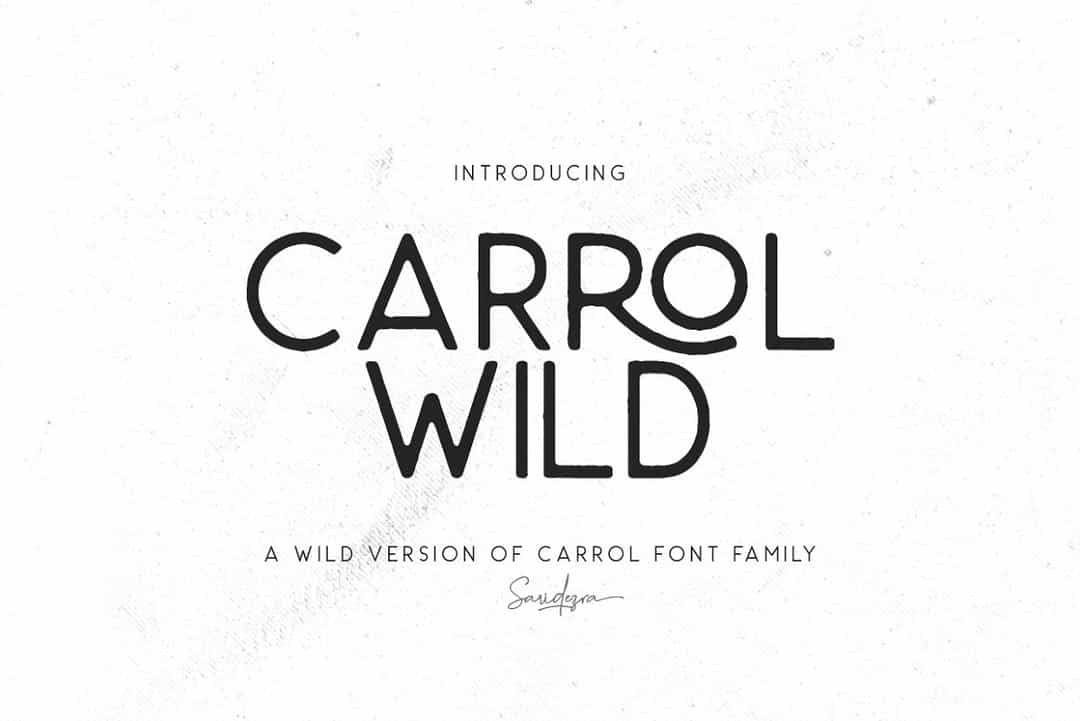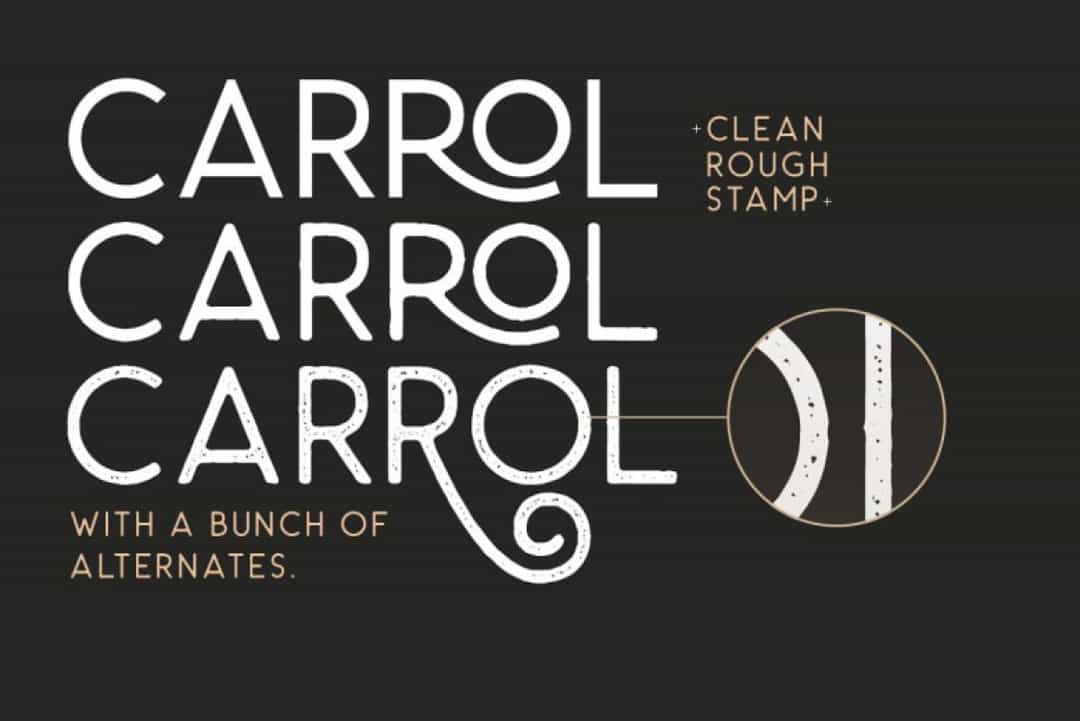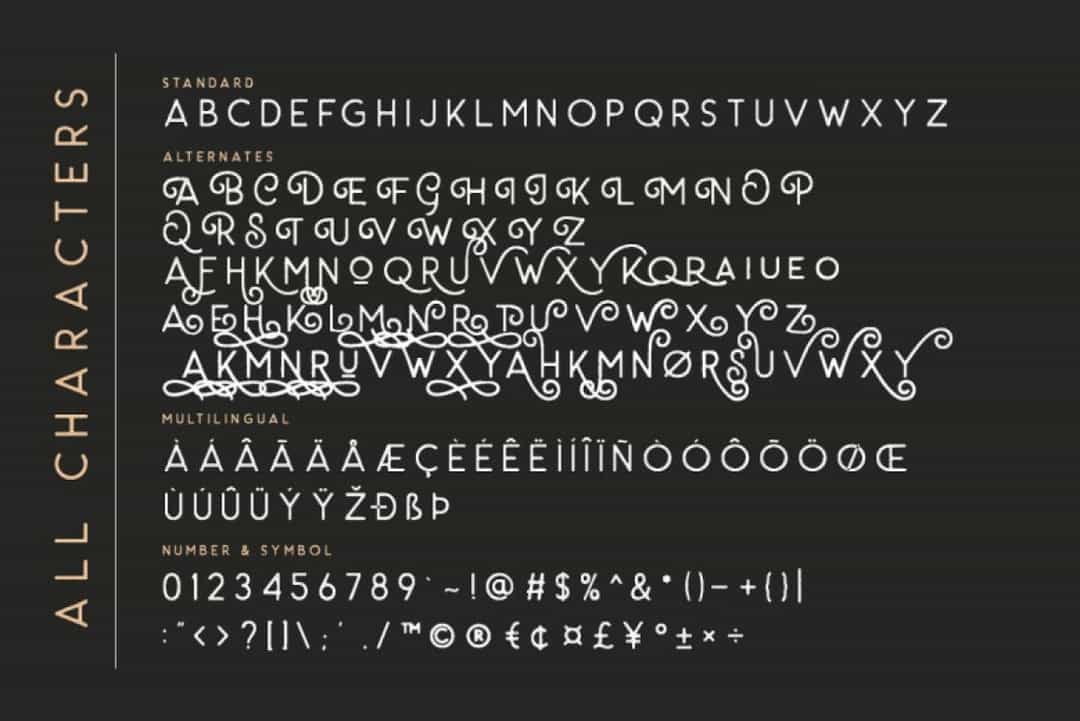
Carrol Wildis an upbeat and unorthodox sans serif font with multiple alternate letters in each alphabet! Each alphabet can feature up to six different variations – making this font suitable for use as an inscription, logo or quotes, as well as script-style indenting in any project!